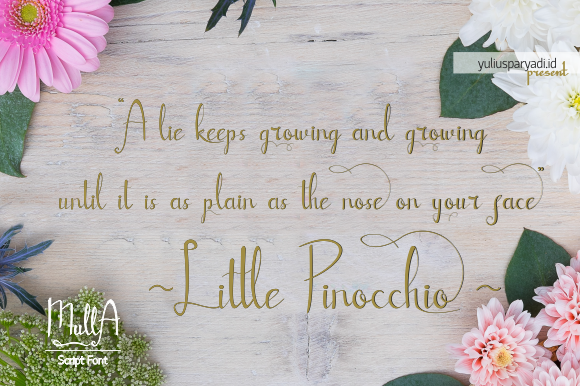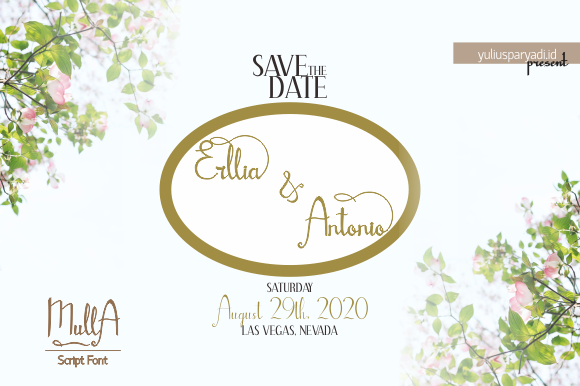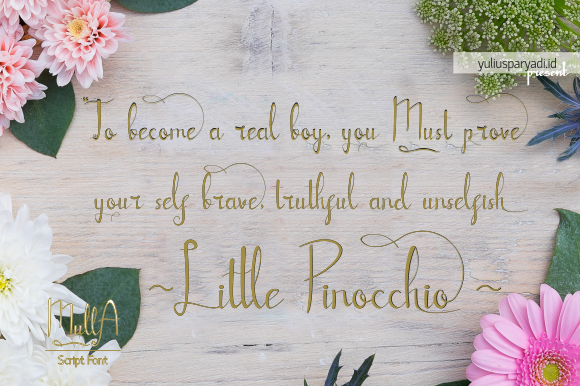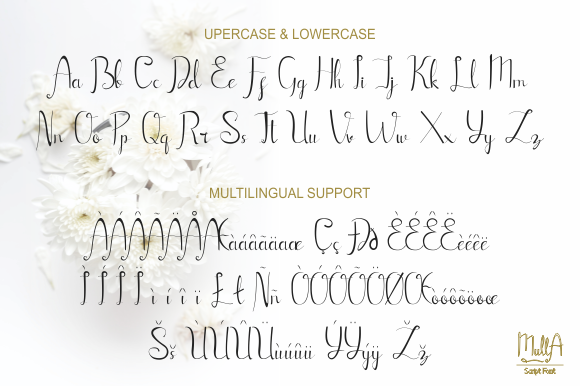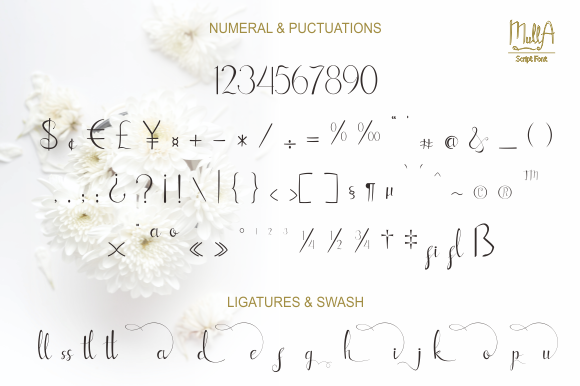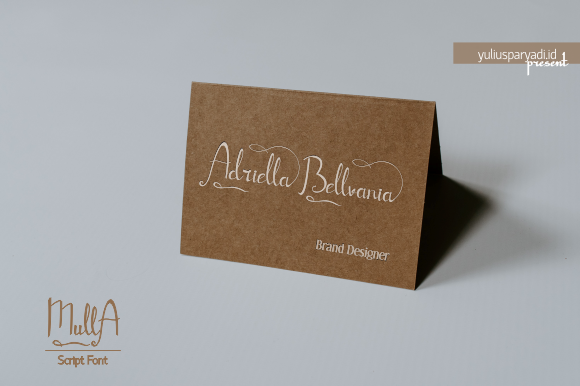
Introduction to Mulla Font
Have you ever been stuck on a creative project, searching for that perfect handwritten touch that makes your design stand out? I know I have. Remember the countless hours spent browsing through font libraries, scrolling through social media, and scouring online marketplaces for the perfect font. And then, one day, you stumble upon it – the elusive, yet elegant Mulla Font.
As designers, we know the value of a high-quality font that can elevate our designs from ordinary to extraordinary. Mulla Font is that game-changing design resource that brings a touch of sophistication and whimsy to any project. Whether it’s a wedding invitation, a quote, or a logo, this stunning handwritten font is sure to impress. And the best part? It’s available for free download with a transparent background, making it a versatile addition to any designer’s toolkit.
Key Features of Mulla Font
- High-quality design resource with a unique and creative style, perfect for various projects.
- Designed with a high resolution, ensuring crisp and clear text rendering, even at larger sizes.
- Unique characteristics include intricate details and a modern aesthetic, making it an ideal choice for creative projects.
Honest Review: Mulla Font
I recently stumbled upon the Mulla Font, and I must say it’s a fantastic addition to any designer’s toolkit. As a design resource, it offers a unique blend of elegance and playfulness that’s perfect for creative projects.
The Mulla Font features a beautiful, high-quality design with a transparent background, making it easy to use in various design applications. The font is also available for free download, which is a major plus in my book.
- Unique and stylish design that sets it apart from other fonts
- High-quality image with a transparent background for easy use
- Limited font weights and styles, which may not be ideal for complex design projects
- Some users may find the font too ornate or distracting in certain contexts
Overall, I’m impressed with the Mulla Font, and I think it’s a great choice for designers looking to add some personality to their work. With its unique design and free download option, it’s definitely worth checking out.
Mulla Font
Mulla Font is a high-quality design resource ideal for any creative project. With a transparent background, this font can be easily incorporated into various design platforms.
For the most out of Mulla Font, use it in conjunction with other design elements to create visually appealing and cohesive designs. Experiment with different font sizes and colors to achieve the desired effect.
Mulla Font is ideal for various design projects, including logos, business cards, and social media graphics. Its high-quality design and transparent background make it a versatile and useful resource for designers.